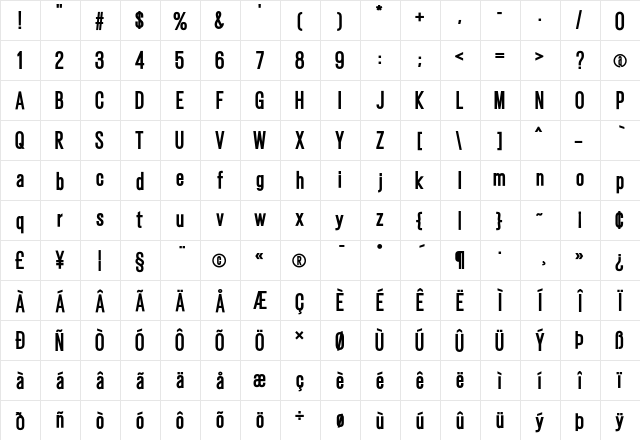
Gatty Extra Bold
Design Context for Gatty Typeface
Gatty offers clean, dependable letterforms without strong stylistic allegiance, making it a practical choice for designers who need flexibility. Its bold stroke weight gives it real presence on the page.
Pro Tip: Pair Gatty with a font of contrasting weight or personality to build a more expressive typographic hierarchy.